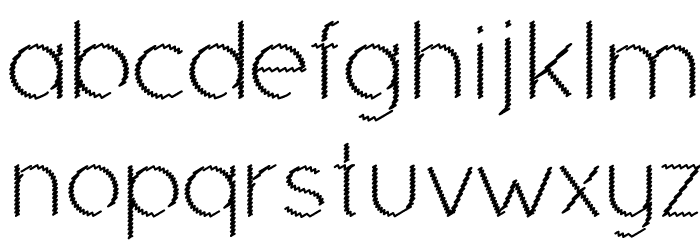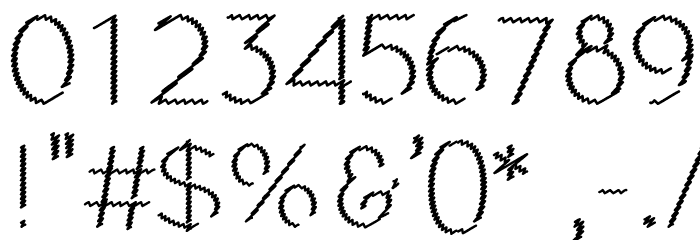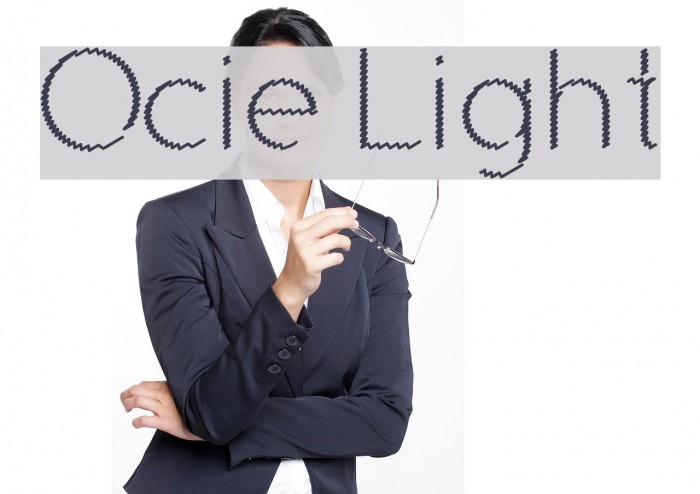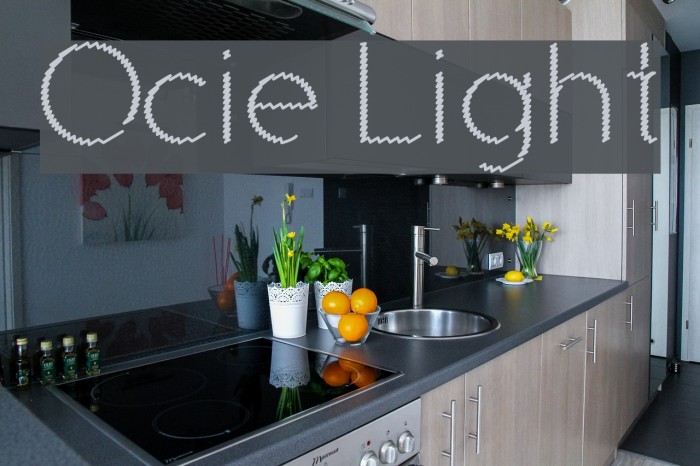
Ocie Light Font
This font features a unique zigzag pattern that runs through each character, giving it a dynamic and textured appearance. The letters are clean and geometric, with a modern sans-serif style that maintains readability despite the intricate design. The uppercase and lowercase letters are well-proportioned, and the numbers follow the same stylistic approach, ensuring consistency across all characters. The special characters are also designed with the same zigzag pattern, making them stand out while remaining cohesive with the rest of the font. This font's distinctive style makes it ideal for creative projects that require a bold and artistic touch.
A modern sans-serif font with a unique zigzag pattern for a textured look.
- Proposed Projects: Ideal for branding, posters, and creative digital artwork where a bold statement is needed.
- Use Case: Logos, Headlines, Posters